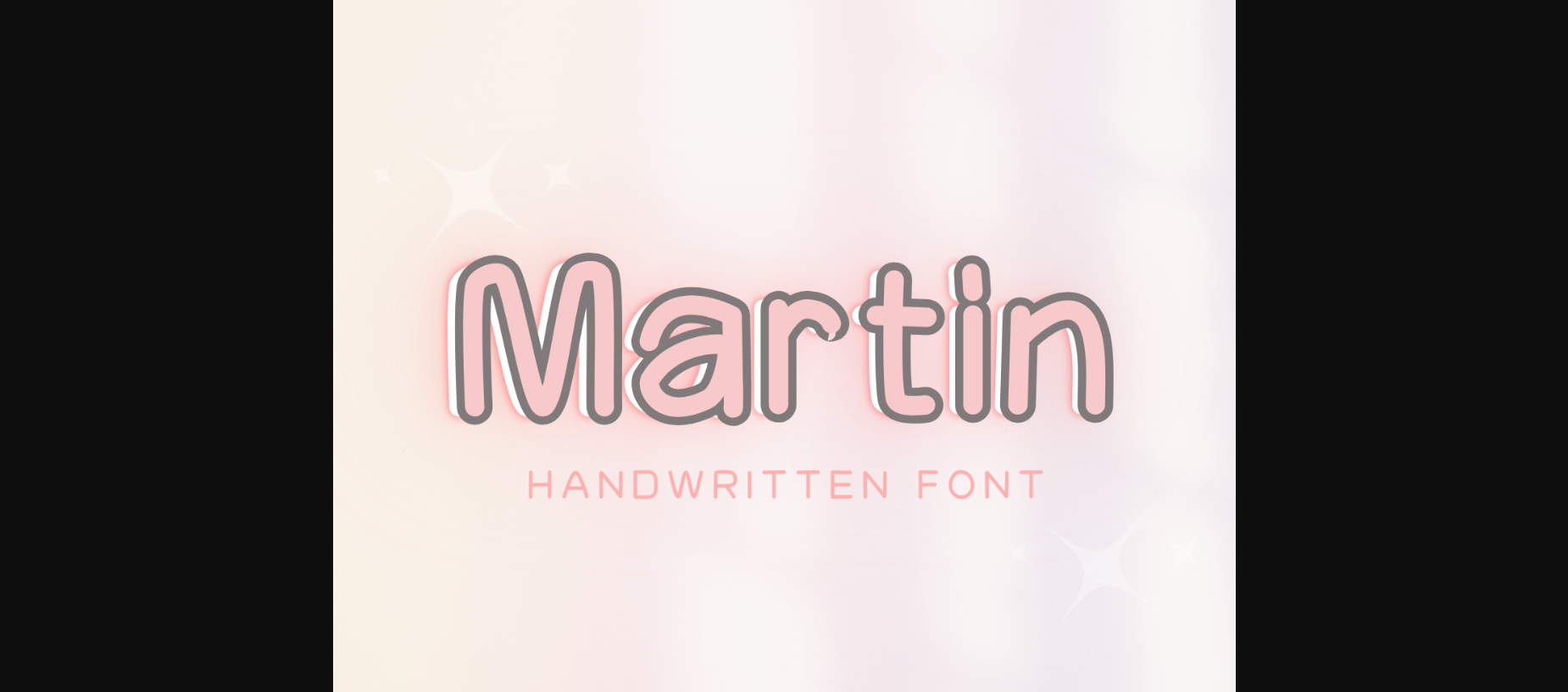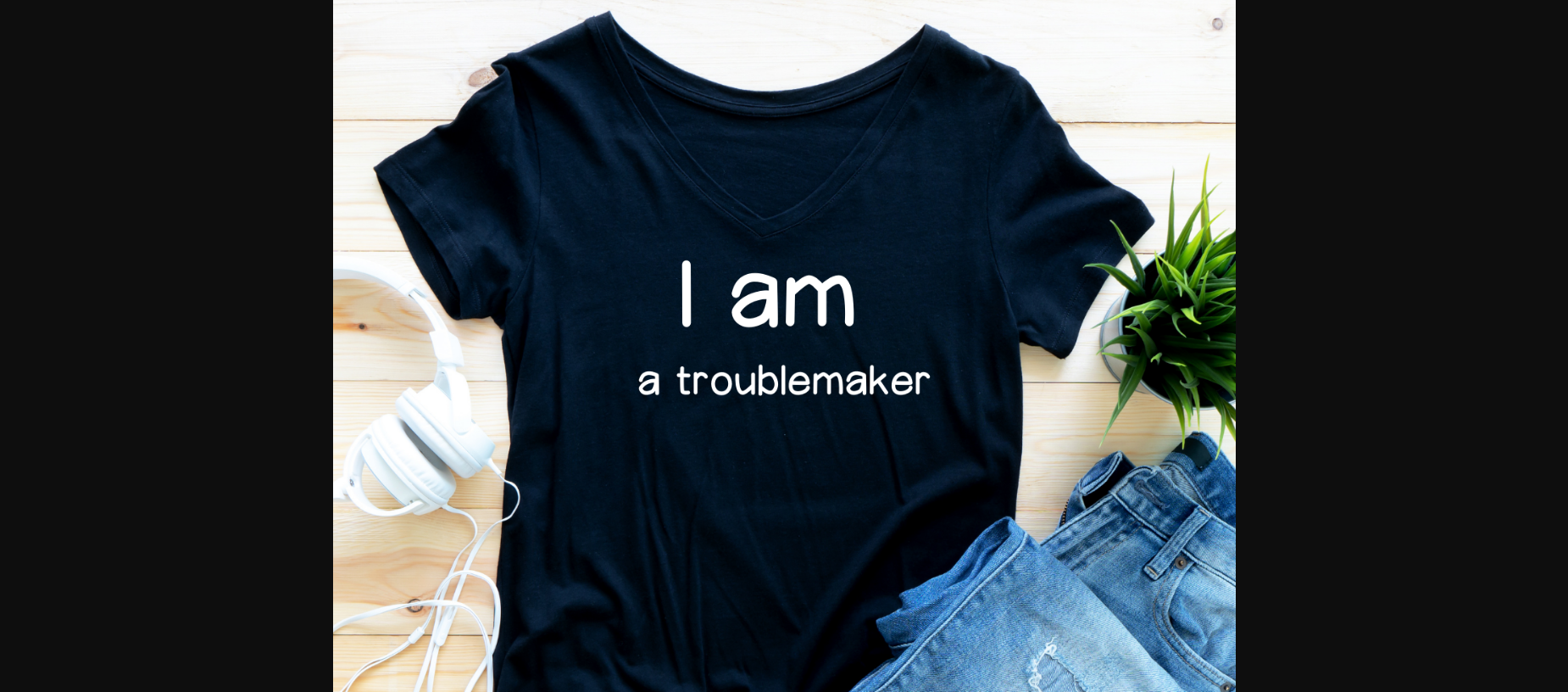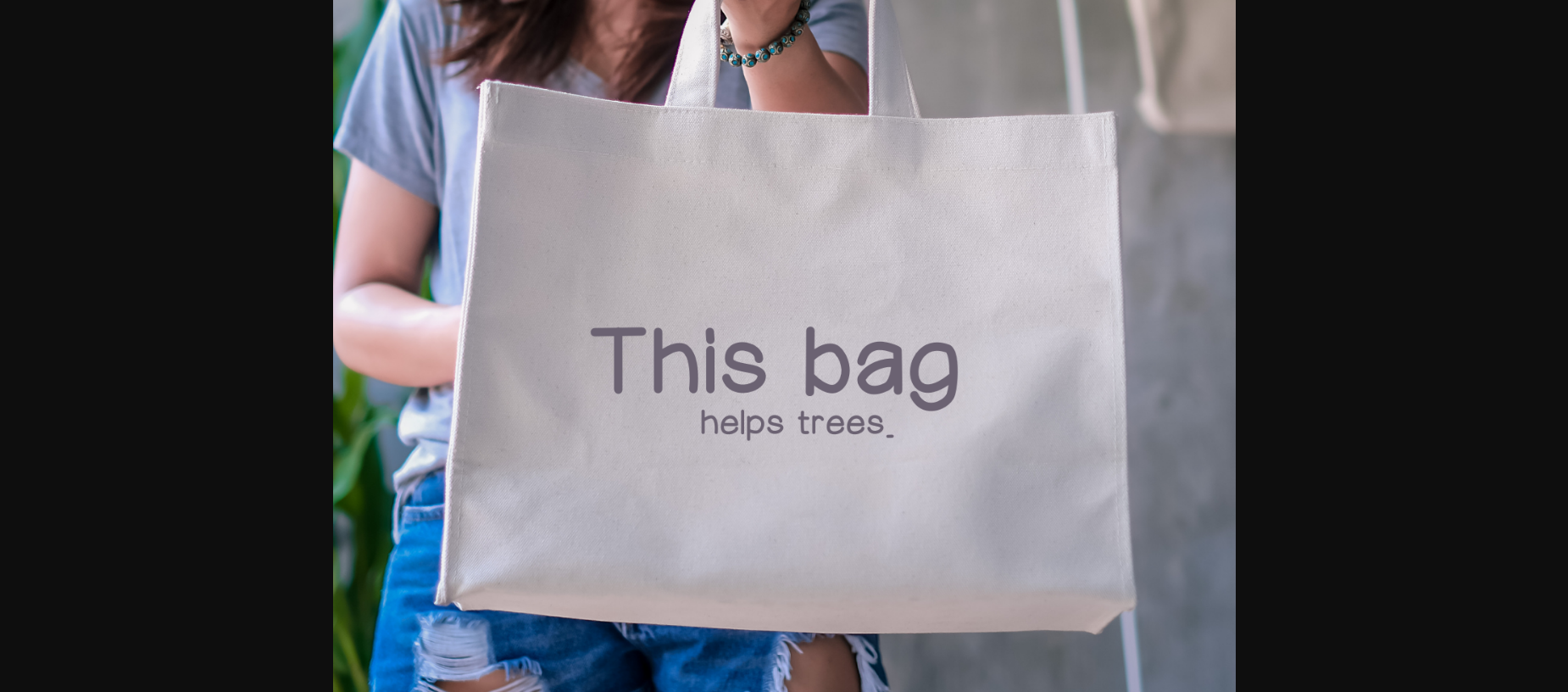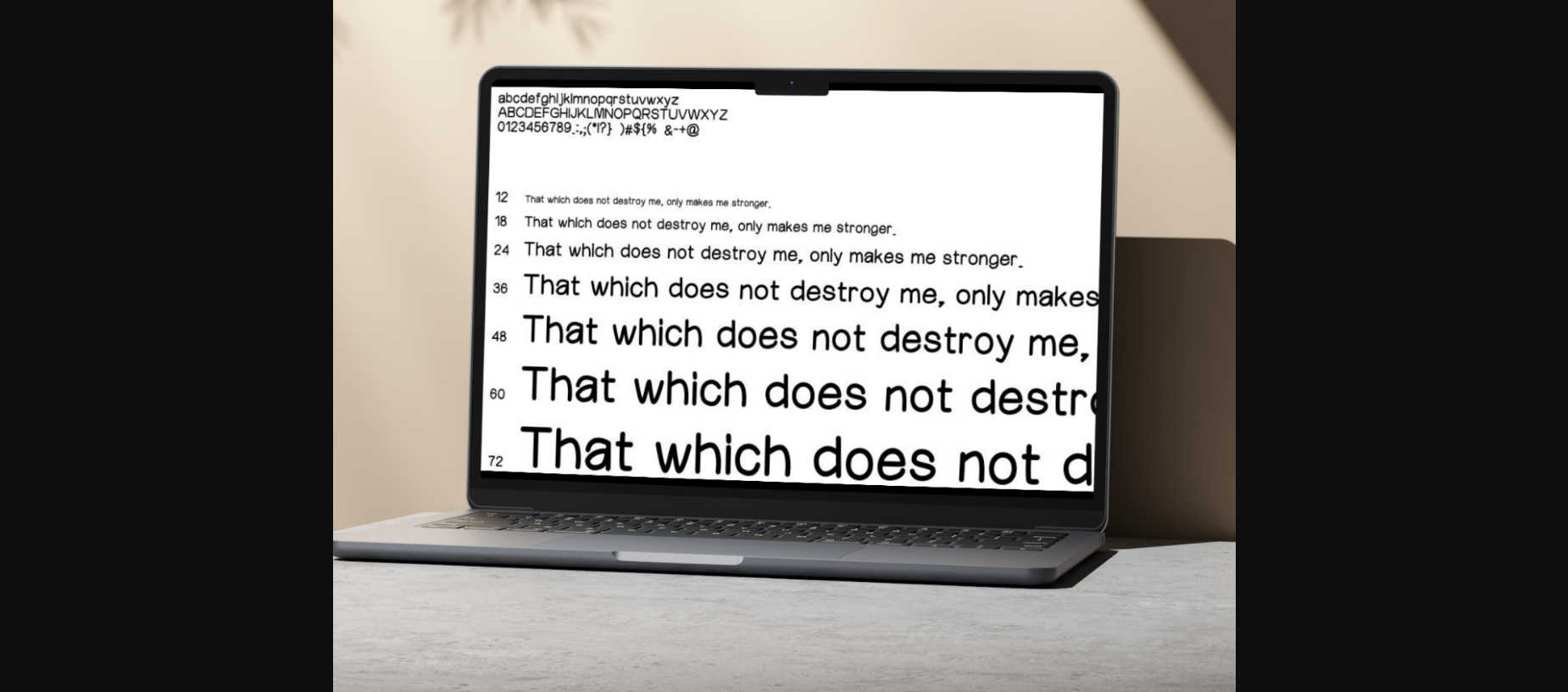
About Martin Font
Martin is a modern handwritten script. This font looks natural, stylish, and perfect for any extraordinary project that requires a handwritten feel. Its versatile style looks lovely on wedding invitations, thank you cards, quotes, greeting cards, logos, business cards, and every other design that needs a customized touch.